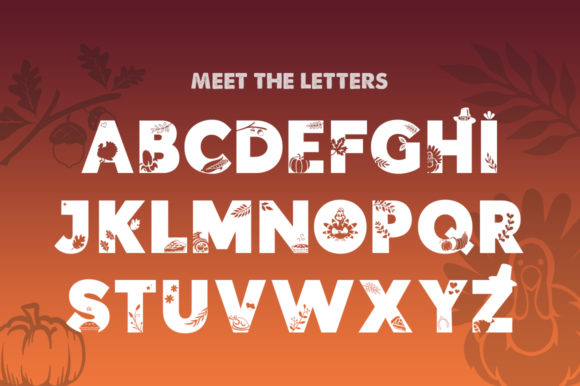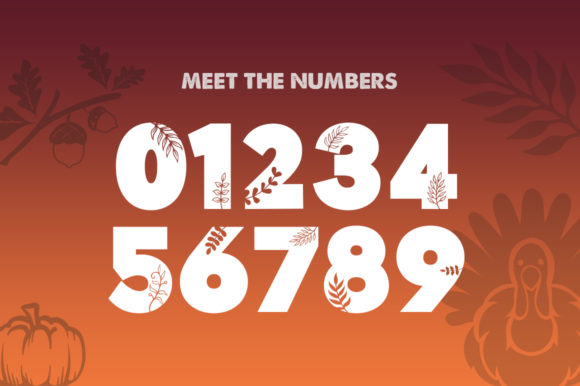
Give Thanks Silhouette Font: Elevate Your Thanksgiving Designs with a Bold and Festive Touch
As the Thanksgiving season approaches, designers and crafters are on the lookout for the perfect font to add a touch of warmth and festivity to their designs. Look no further than the Give Thanks Silhouette Font, a bold and chunky lettered display font that’s sure to make your Thanksgiving designs come alive!
A Festive and Versatile Font for Thanksgiving Designs
Give Thanks is a bold and chunky lettered display font that’s specifically designed to add a festive touch to your Thanksgiving designs. With its sturdy and robust lettering, this font is perfect for creating eye-catching headlines, titles, and phrases that will make your designs stand out. Whether you’re creating invitations, decorations, or social media graphics, Give Thanks is the perfect font to add a touch of warmth and personality to your designs.
Key Features of Give Thanks Silhouette Font
- Bold and Chunky Lettering: Give Thanks features bold and chunky lettering that’s perfect for creating eye-catching headlines and titles.
- Festive and Versatile: This font has a festive and versatile feel that’s perfect for Thanksgiving designs, but can also be used for other seasonal and holiday designs.
- Easily Readable: Despite its bold and chunky design, Give Thanks is easily readable, making it perfect for use in a variety of designs.
Give Thanks Silhouette Font is perfect for designers and crafters who want to add a personal touch to their Thanksgiving designs. Whether you’re creating custom invitations, decorations, or gifts, this font is sure to make your designs stand out. With its bold and chunky lettering, Give Thanks is also perfect for use in a variety of craft projects, such as scrapbooking, card making, and DIY decorations.
Tips for Using Give Thanks Silhouette Font
- Pair with Other Fonts: Pair Give Thanks with other fonts to create a unique and eye-catching design.
- Use in Combination with Images: Use Give Thanks in combination with images of fall leaves, pumpkins, and other Thanksgiving-themed imagery to create a cohesive design.
In conclusion, Give Thanks Silhouette Font is a must-have for designers and crafters who want to create beautiful and festive Thanksgiving designs. With its bold and chunky lettering, festive and versatile feel, and easily readable design, Give Thanks is the perfect font for adding a personal touch to your designs. So don’t miss out – download Give Thanks today and start creating your Thanksgiving designs!